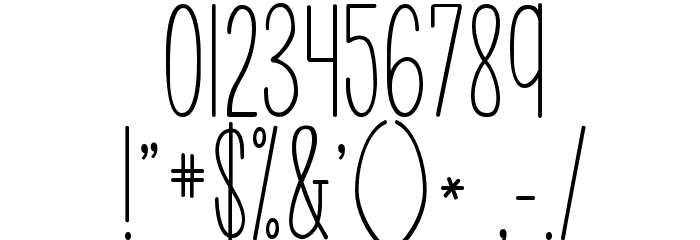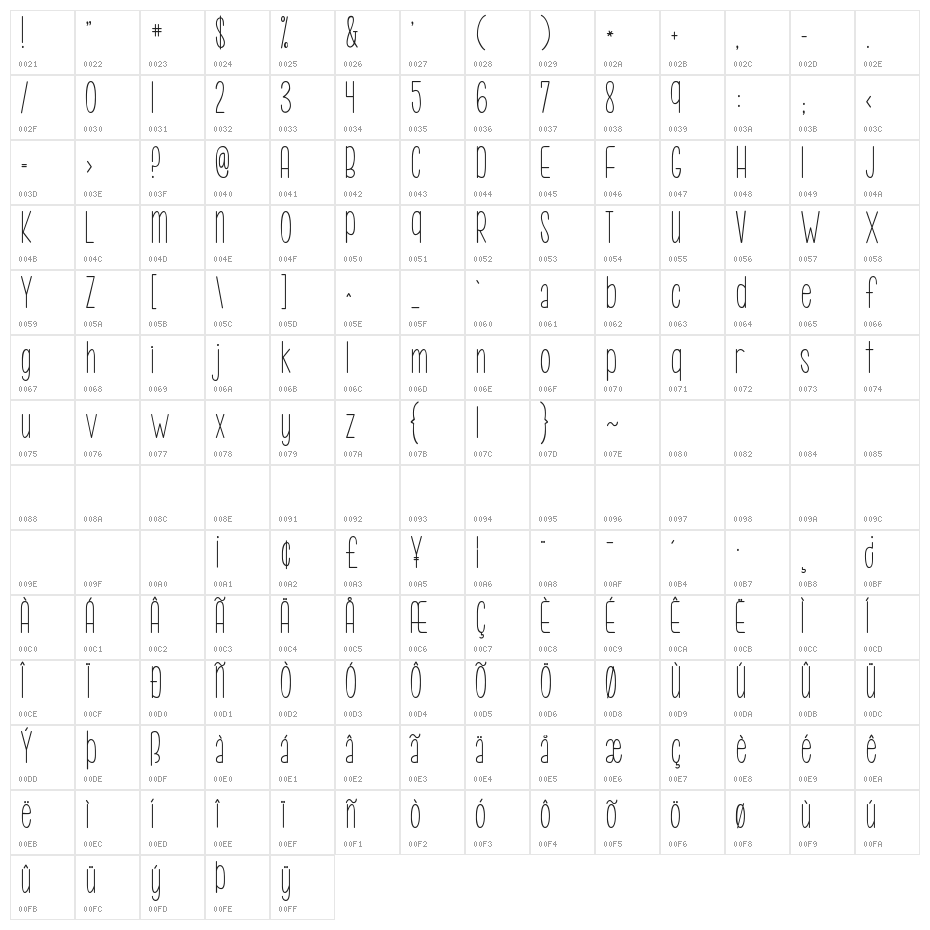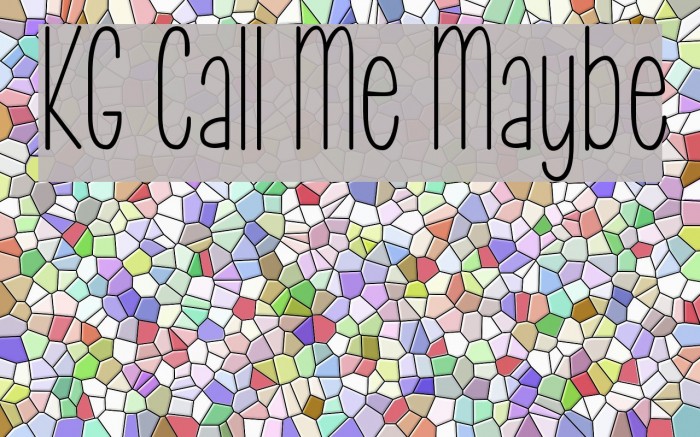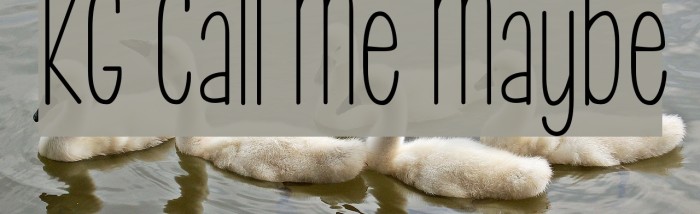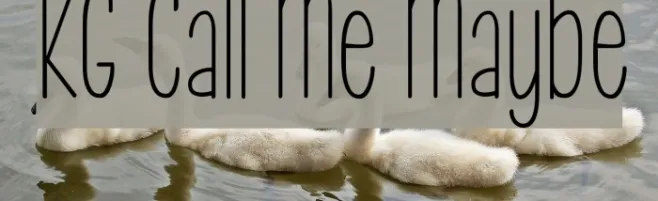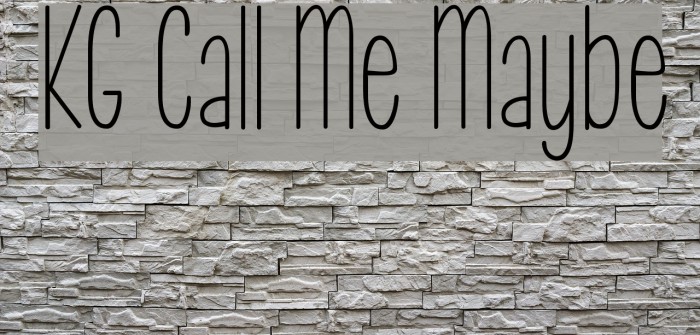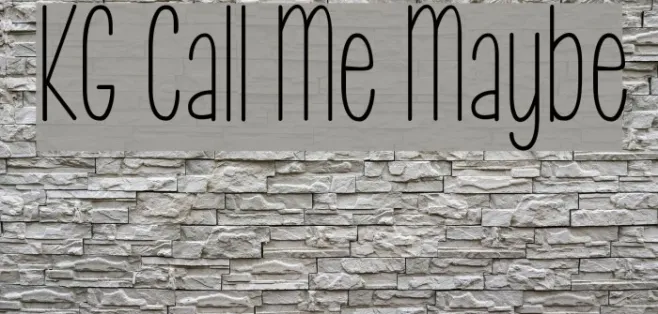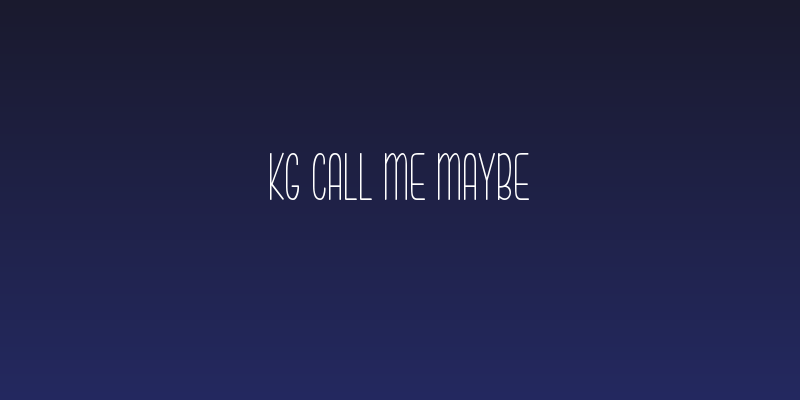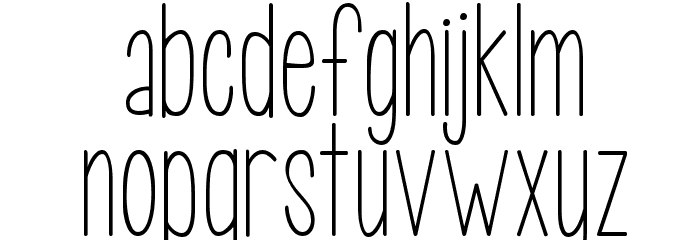
KG Call Me Maybe Font
KG Call Me Maybe Description
This font features a tall, narrow design with a playful and whimsical character. The letters are elongated with rounded edges, giving it a friendly and approachable feel. The uppercase and lowercase letters maintain a consistent height, creating a uniform appearance. The numerals and special characters follow the same slender style, ensuring cohesion across all text elements. The overall look is clean and modern, making it suitable for a variety of creative projects.